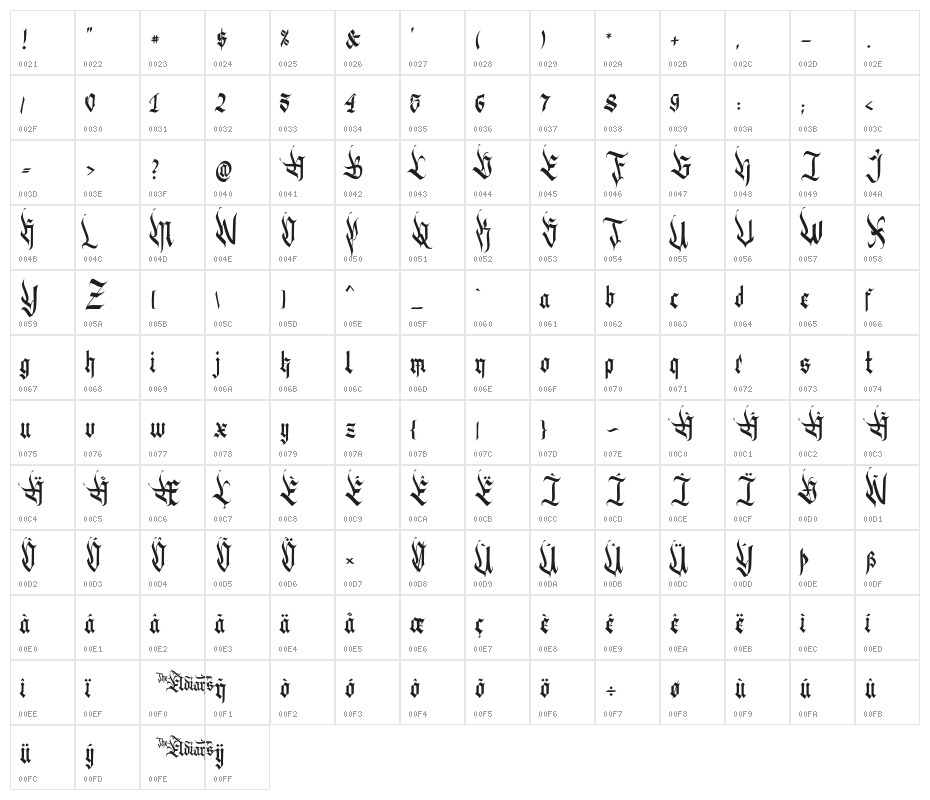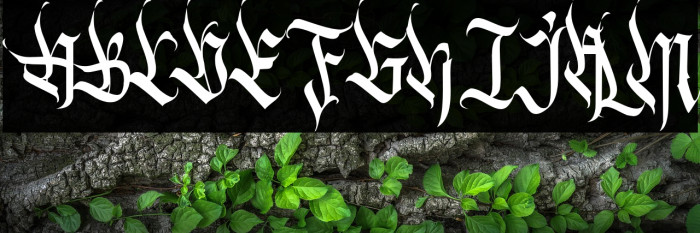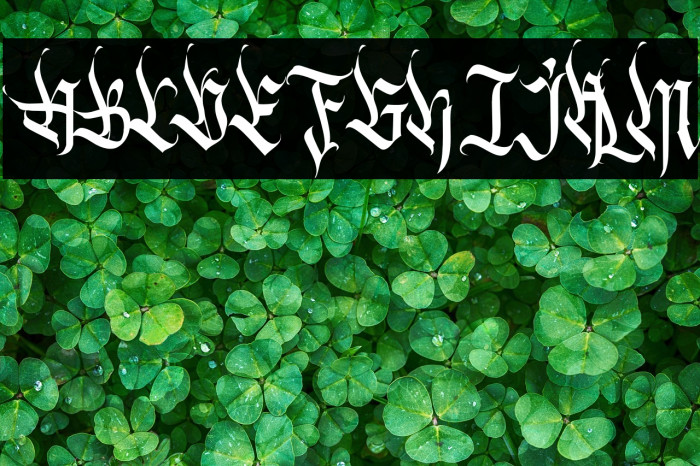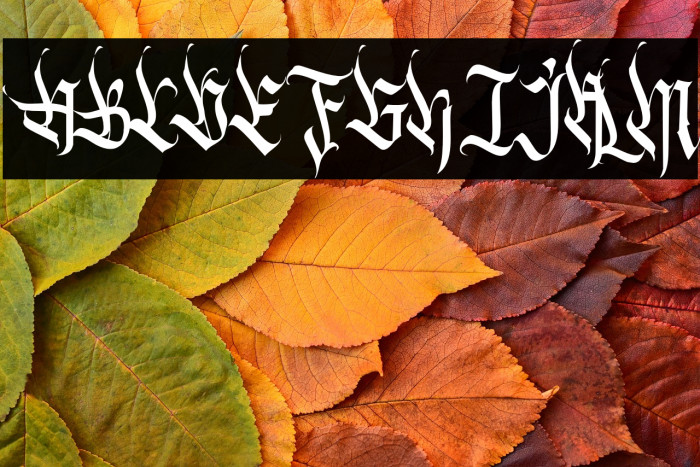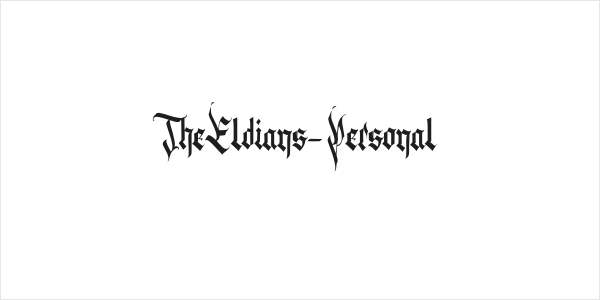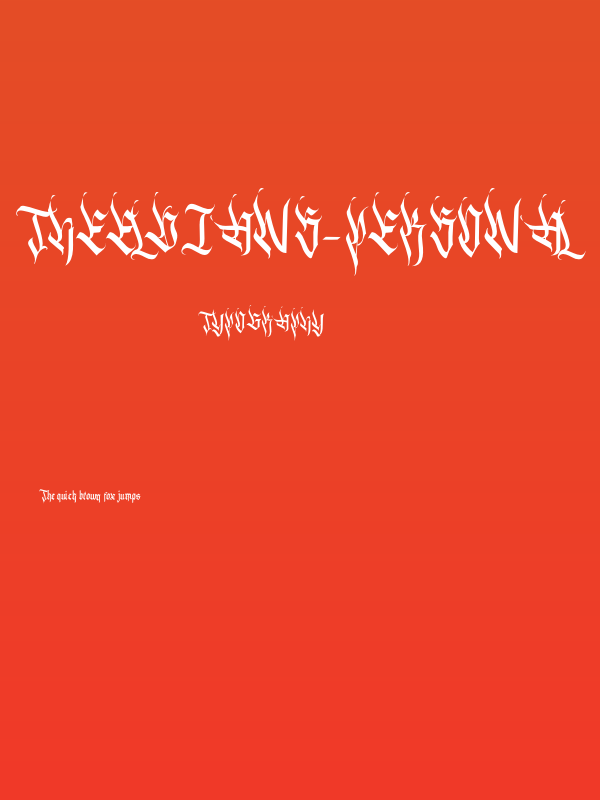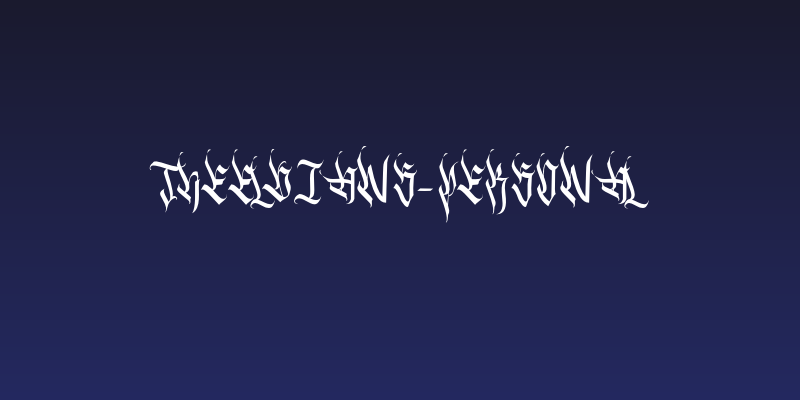
TheEldians-Personal Font
TheEldians-Personal Description
This font features a bold and intricate design reminiscent of traditional blackletter styles. The characters are sharply angled with pronounced serifs and decorative flourishes, giving it a dramatic and historical appearance. The uppercase letters are particularly elaborate, with sweeping curves and pointed edges, while the lowercase letters maintain a consistent style with slightly less ornamentation. The numerals and special characters are designed to match the overall aesthetic, ensuring a cohesive look across all text. This font is ideal for projects that require a touch of elegance and a nod to medieval or gothic themes.
| Proposed Projects | Suitable for use in historical themed projects, book covers, posters, and branding that requires a gothic or medieval touch. |